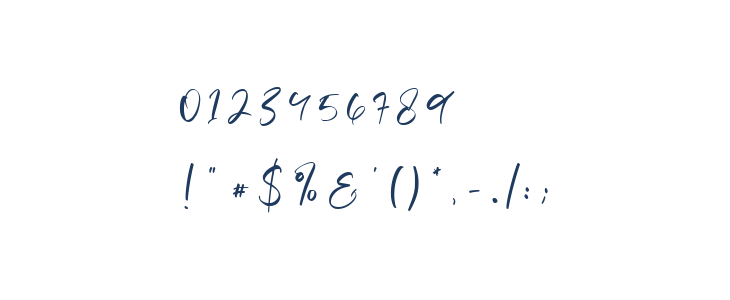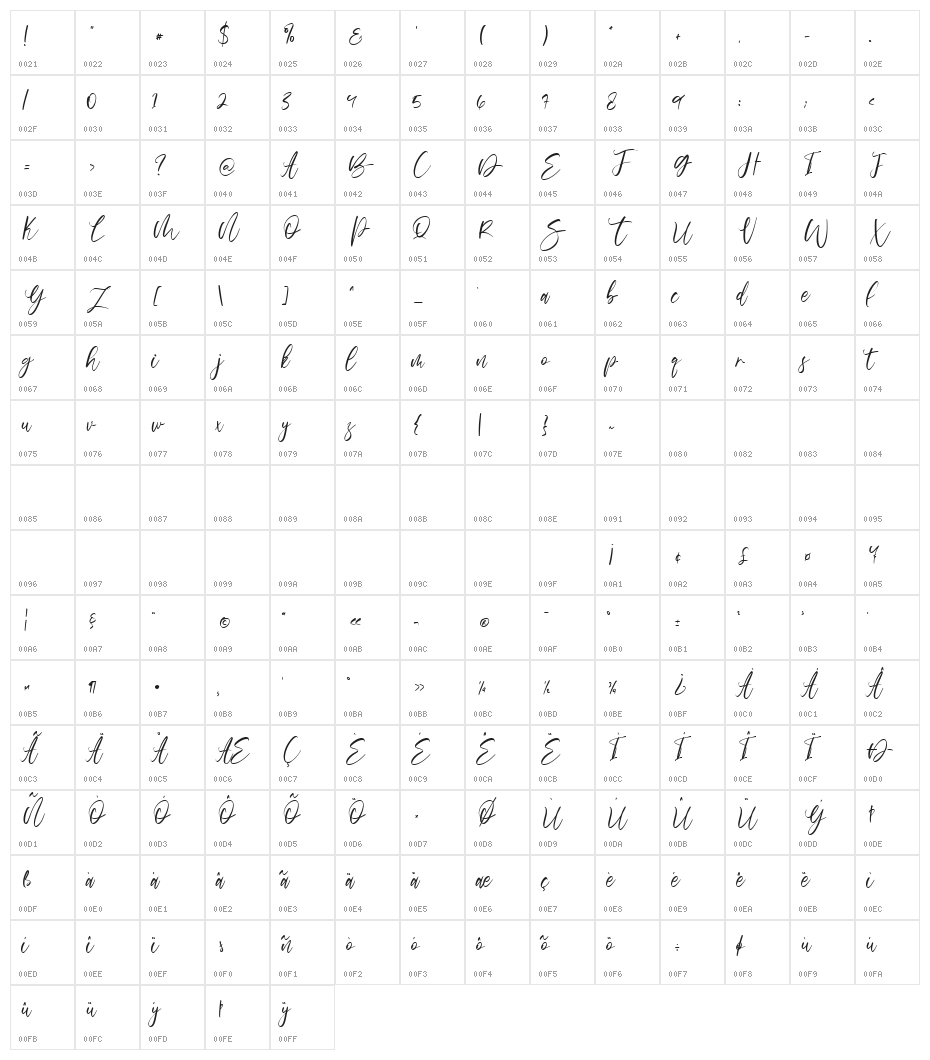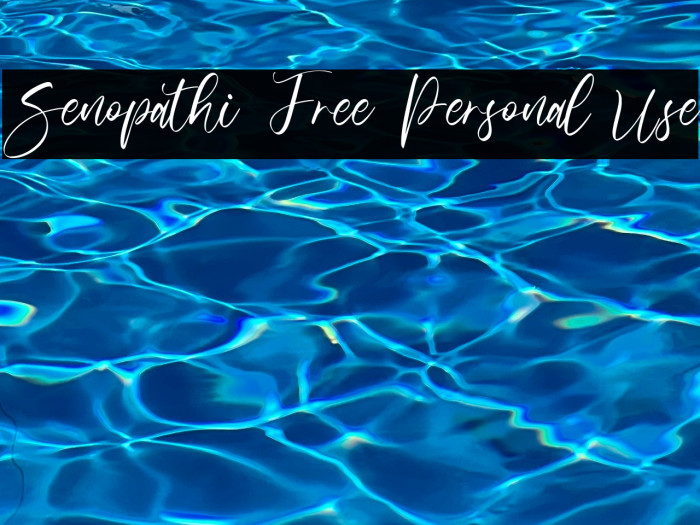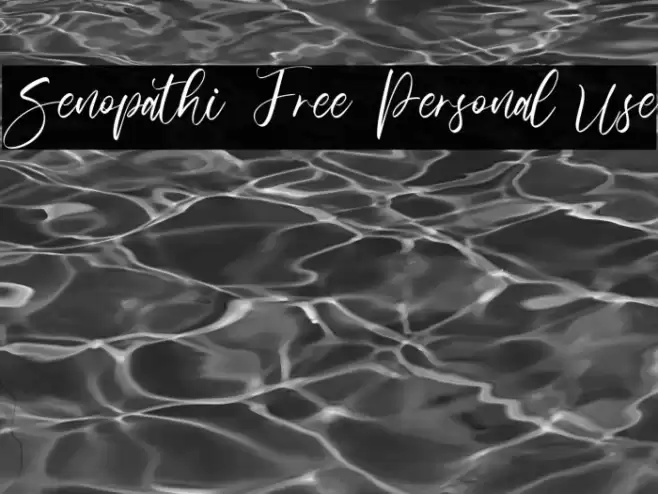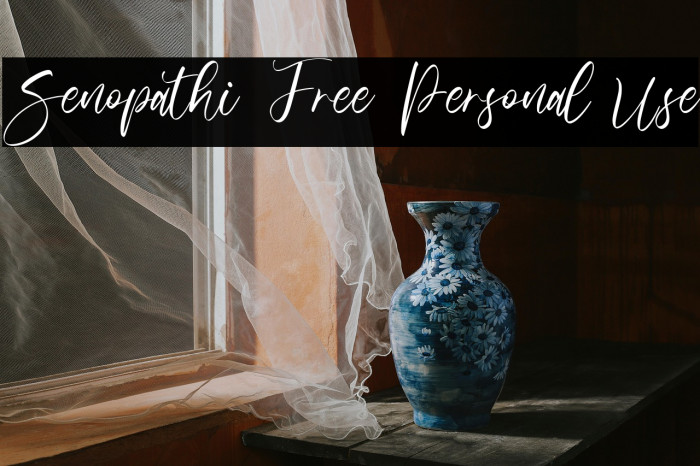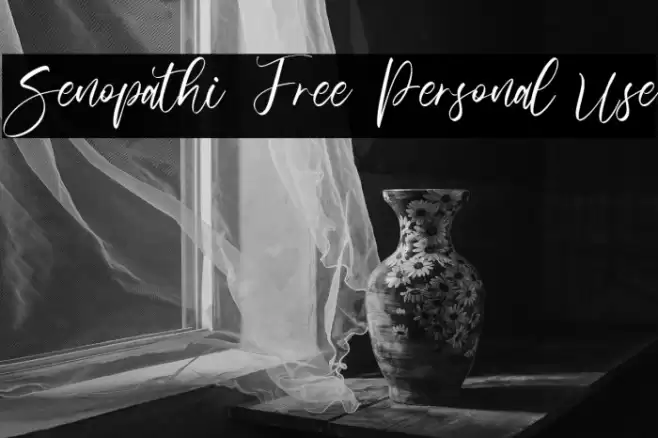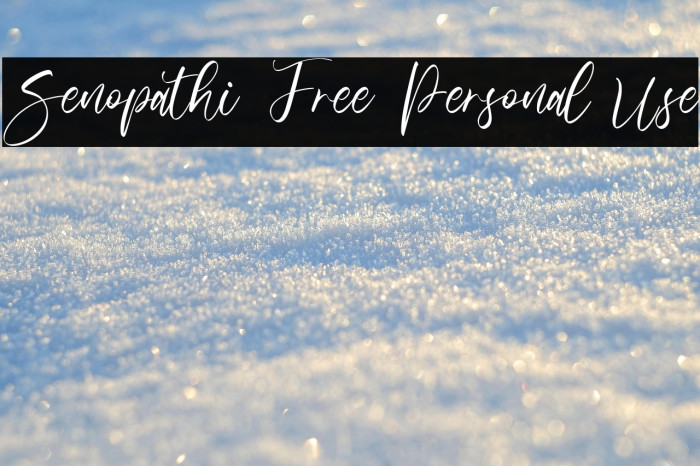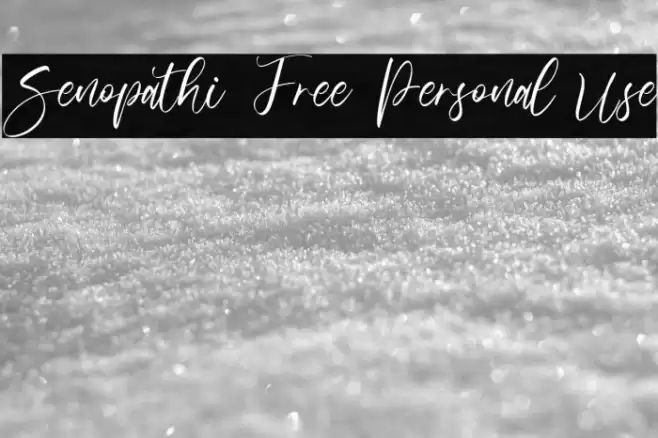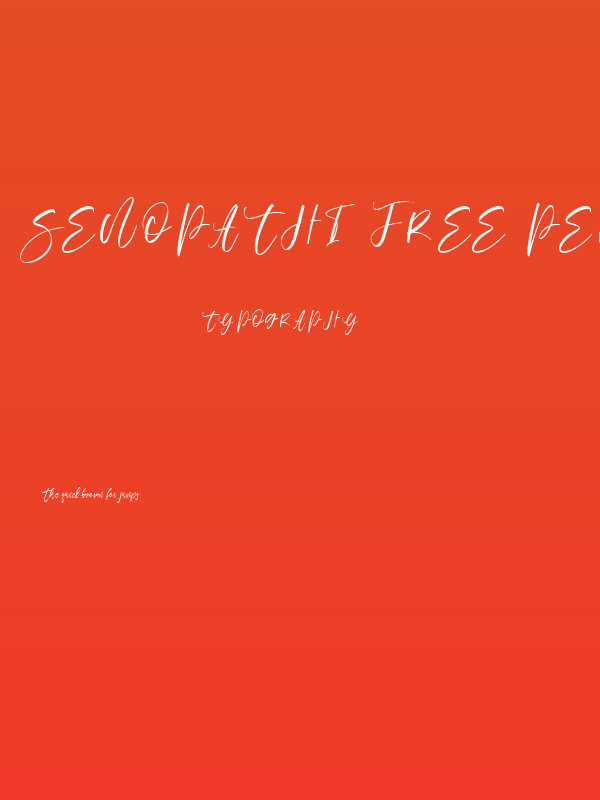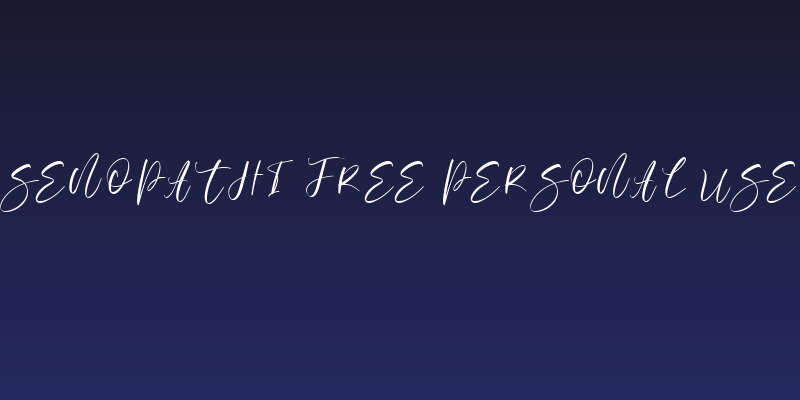
Senopathi Free Personal Use Font
Senopathi Free Personal Use Description
This font exudes a modern and elegant script style, characterized by its fluid and graceful letterforms. Each character is crafted with a sense of movement, featuring smooth curves and varying stroke widths that add a dynamic quality to the text. The uppercase letters are particularly expressive, with some featuring unique flourishes that enhance their visual appeal. The lowercase letters maintain a consistent flow, making them highly legible despite their decorative nature. The numerals and special characters complement the overall style, ensuring versatility in various design contexts. This font is ideal for projects that require a touch of sophistication and creativity.